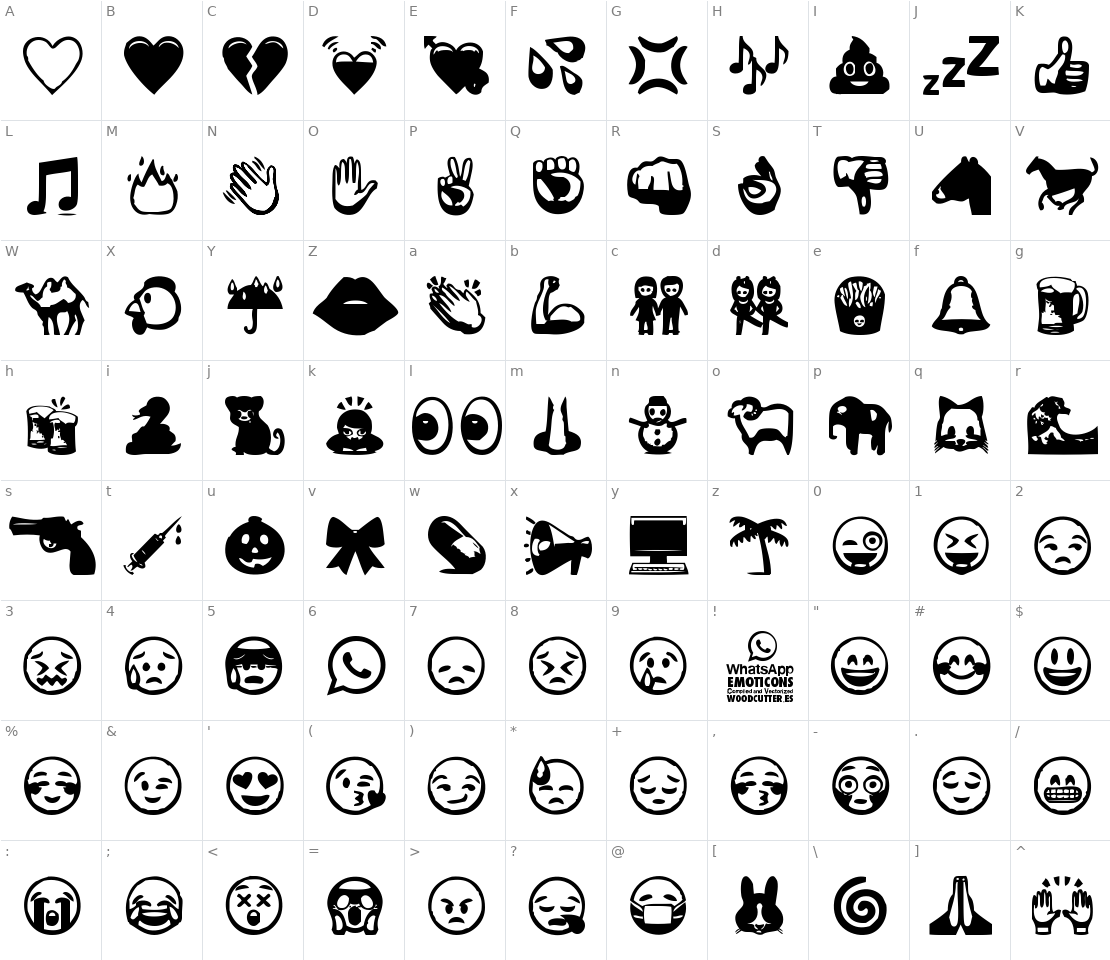
Whatsapp emoticons
Whatsapp emoticons is a symbol font from Woodcutter that replaces standard letter keys with emoji-style icons covering animals, objects, and familiar WhatsApp-inspired emoticons. It's not a typeface in the traditional sense but a collection of small decorative pictograms, useful for adding playful icon elements to informal designs, social media graphics, or chat-themed layouts without needing separate image files.